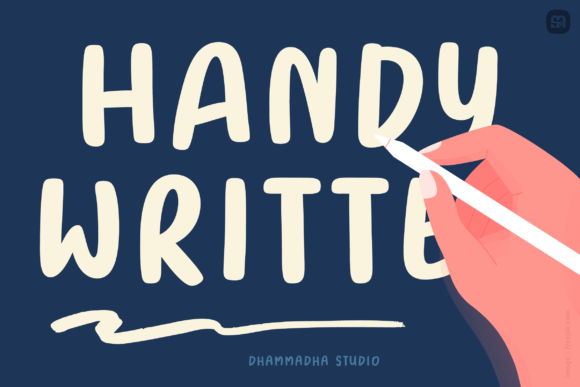
Prepare to be swept off your feet by Handywritten Font, a captivating and enchanting display font that exudes a touch of elegance and character into every design. A creation of DHAMMADHA STUDIO, this stunning script font is meticulously crafted to bring life to your creative visions, ensuring that your words dance off the page with a unique charm and personality.
With its graceful curves and flowing strokes, Handywritten Font effortlessly adds a dash of sophistication and allure to any project. Its innate beauty shines through in every character, making it the perfect choice for crafting logos, branding materials, social media graphics, invitations, greeting cards, and more. Let your creativity flourish as Handywritten Font transforms your designs into works of art.
Unleash the power of Handywritten Font and witness how it captivates your audience's attention effortlessly. With its undeniable allure, this font has the remarkable ability to make your designs stand out from the crowd, leaving a lasting impression that resonates long after they've turned the page. So, why settle for ordinary when you can embrace the extraordinary?
Dive into the world of Handywritten Font and discover a treasure trove of endless possibilities. Let your imagination soar as you explore the limitless applications of this remarkable display font. Transform your creative endeavors into masterpieces that evoke emotions, convey messages, and leave an indelible mark on the hearts and minds of your audience.